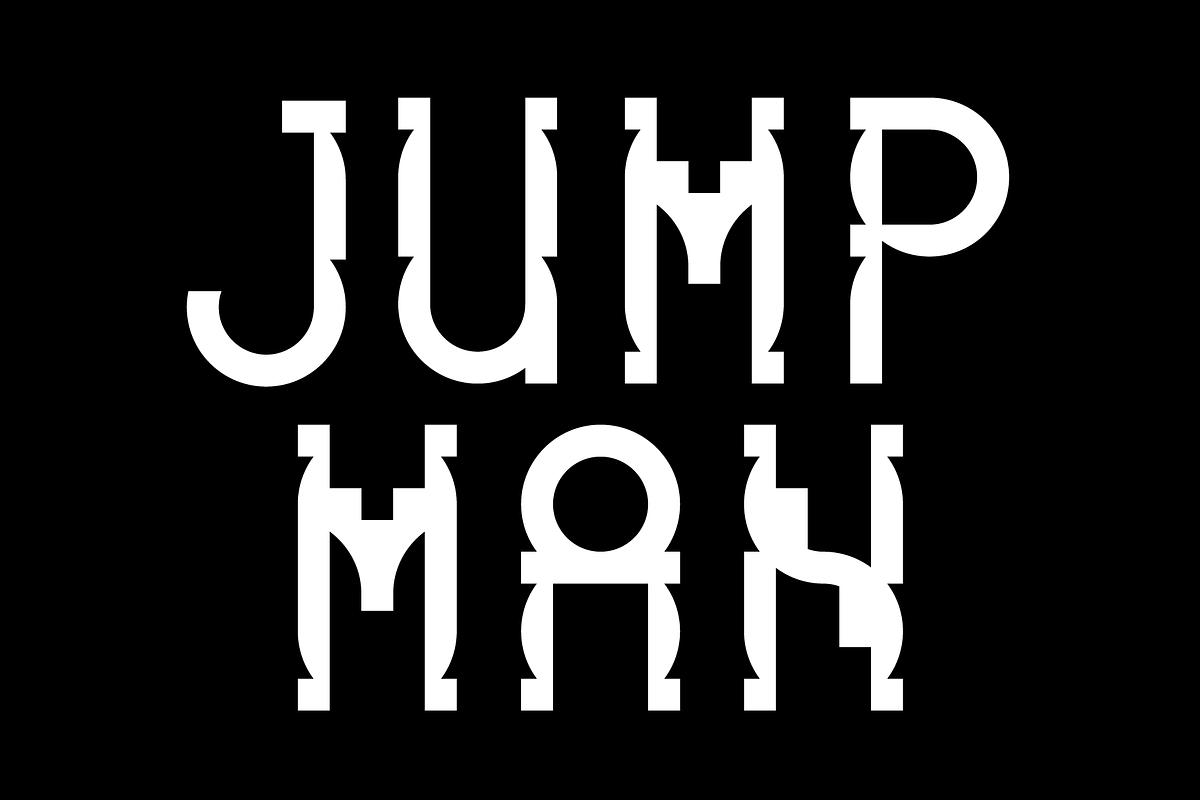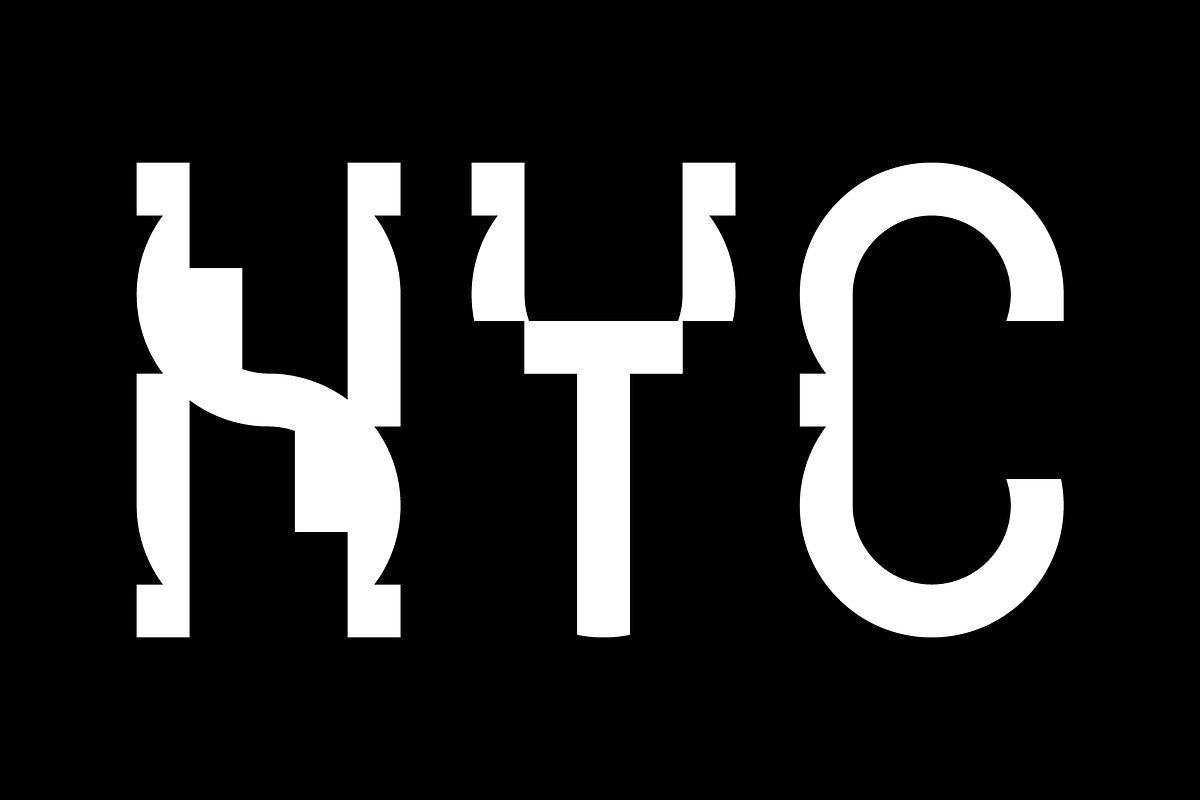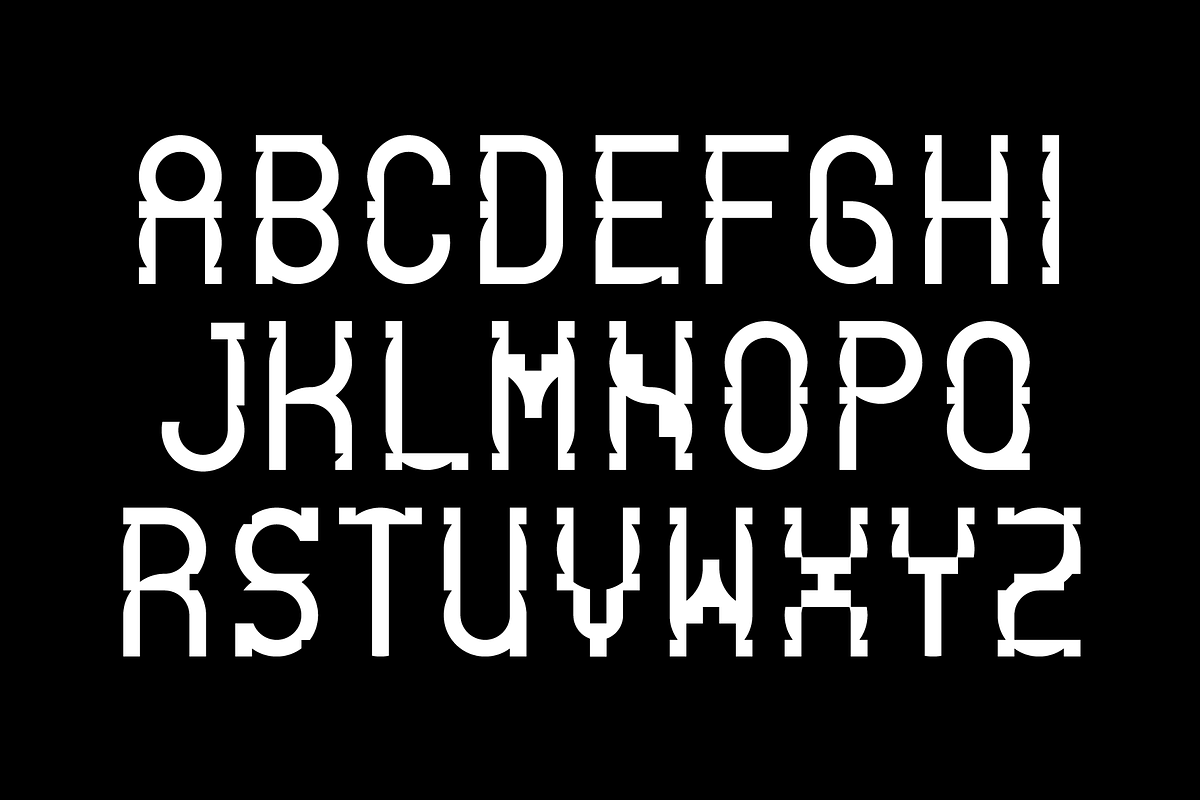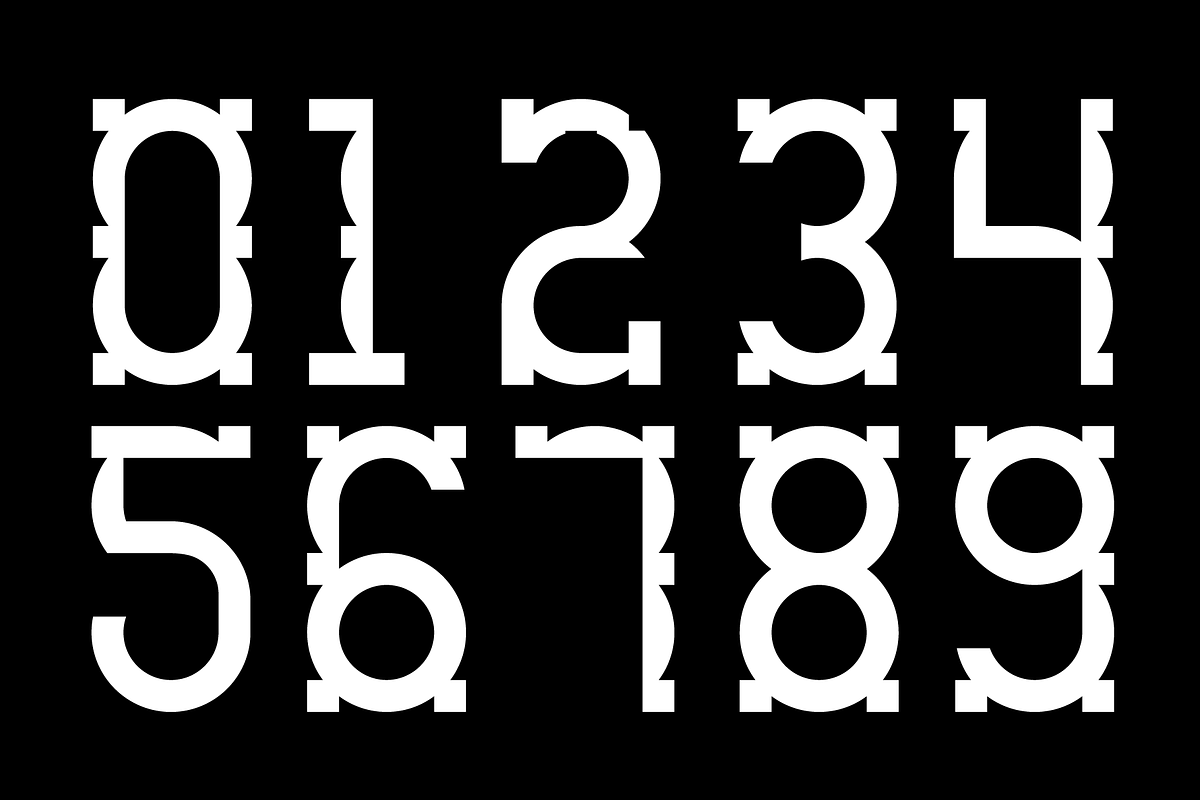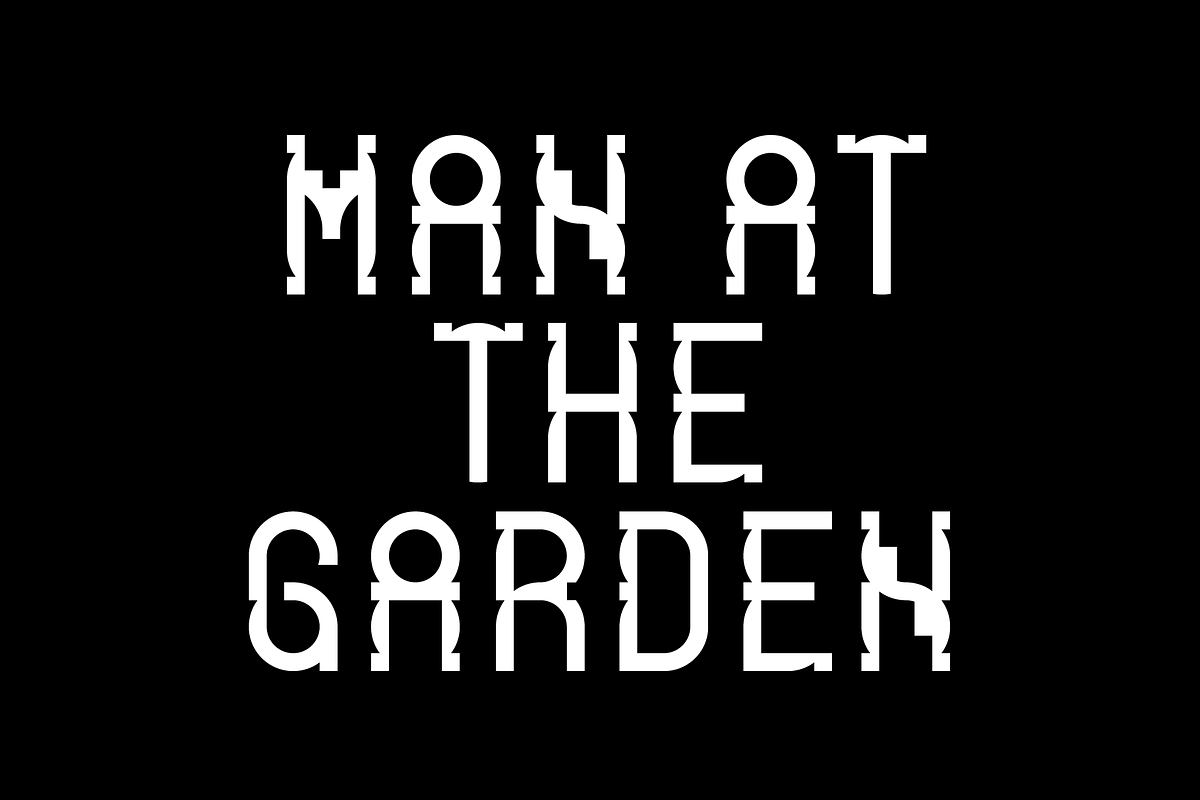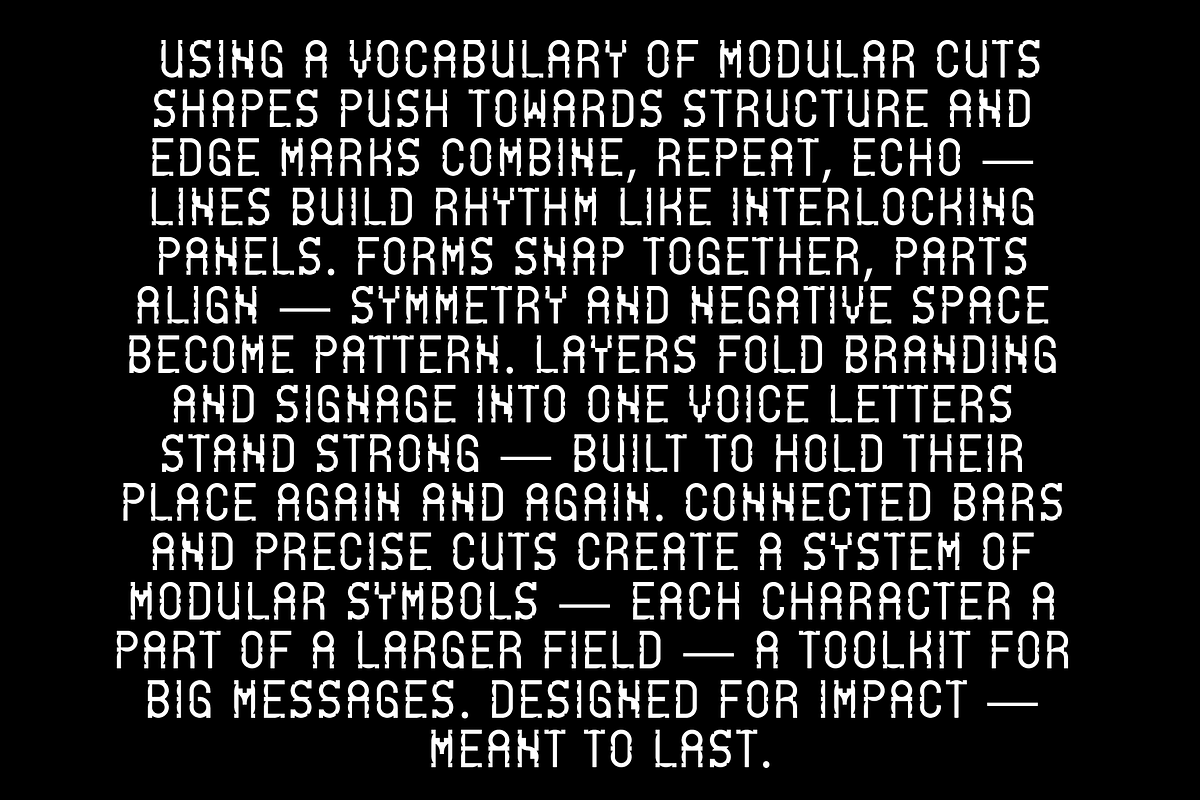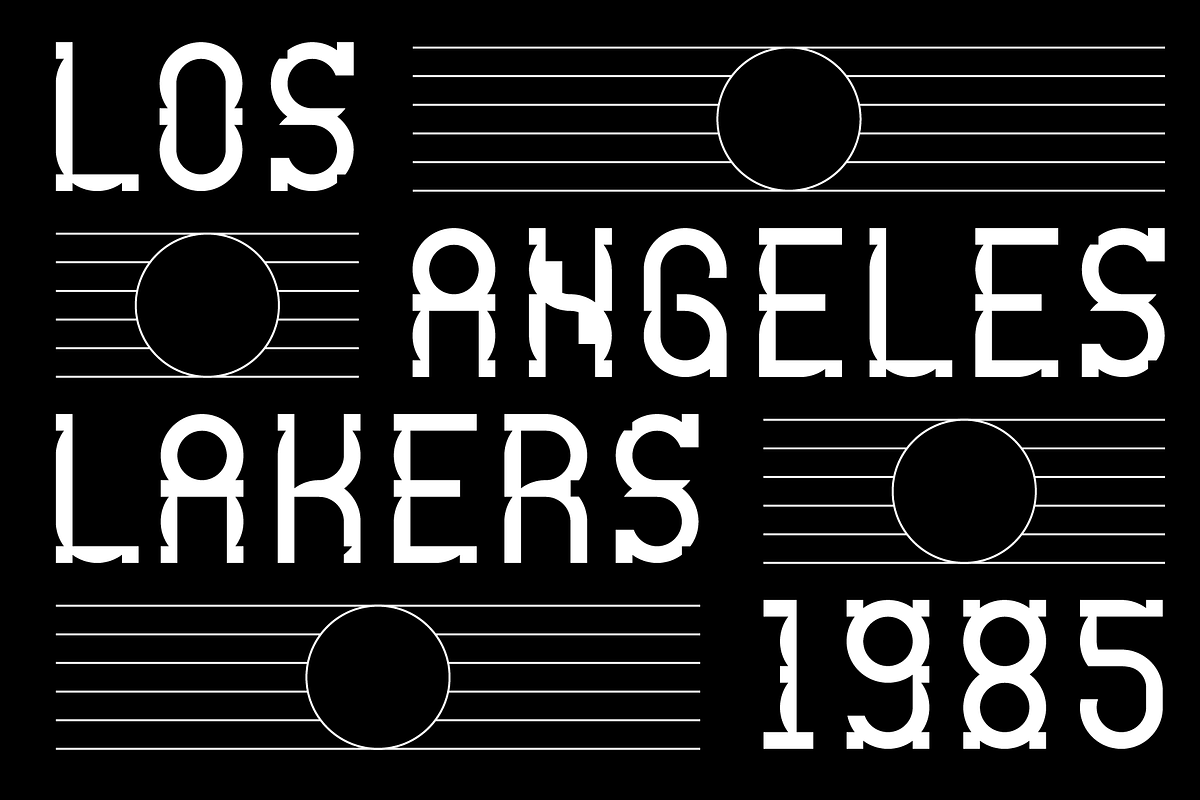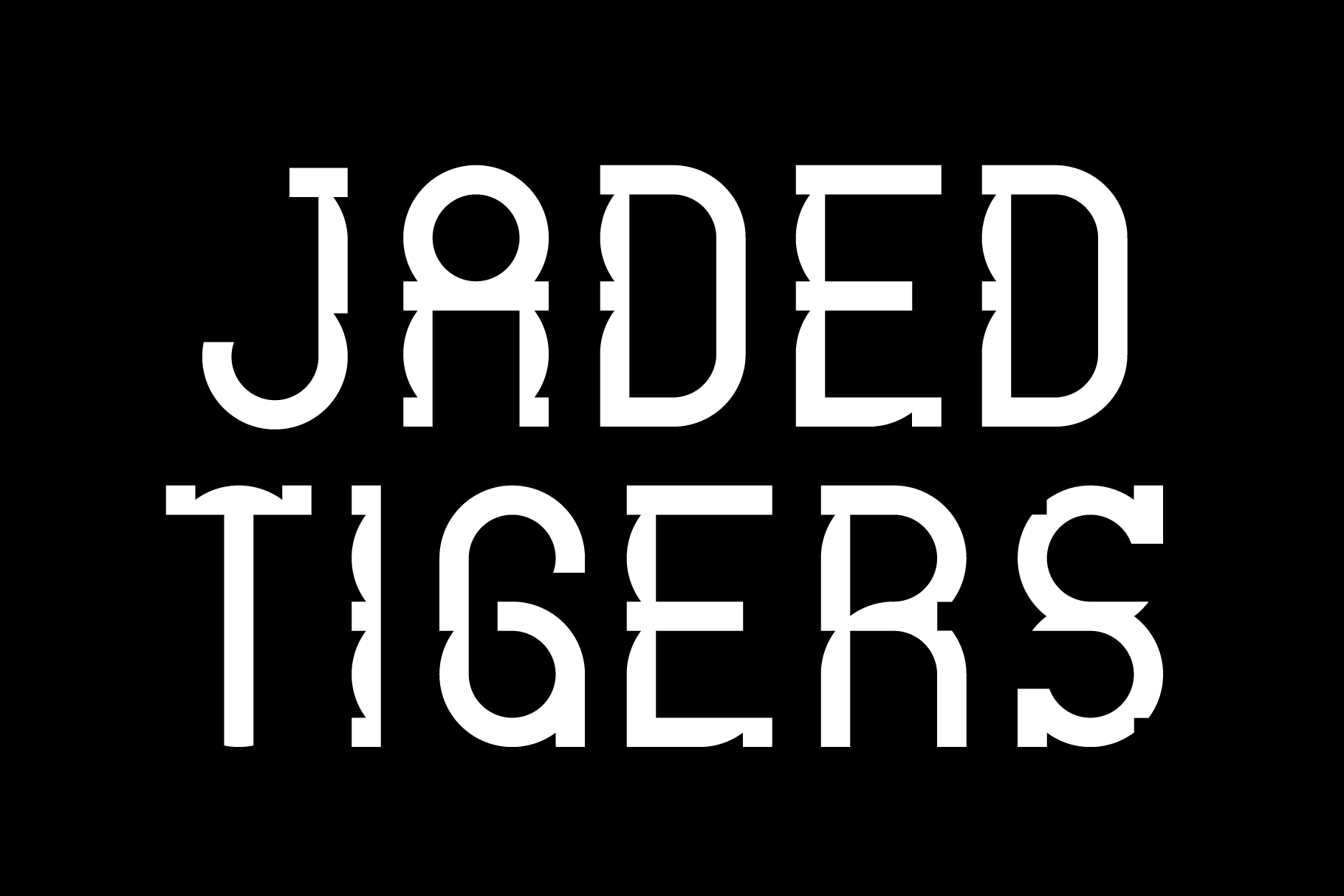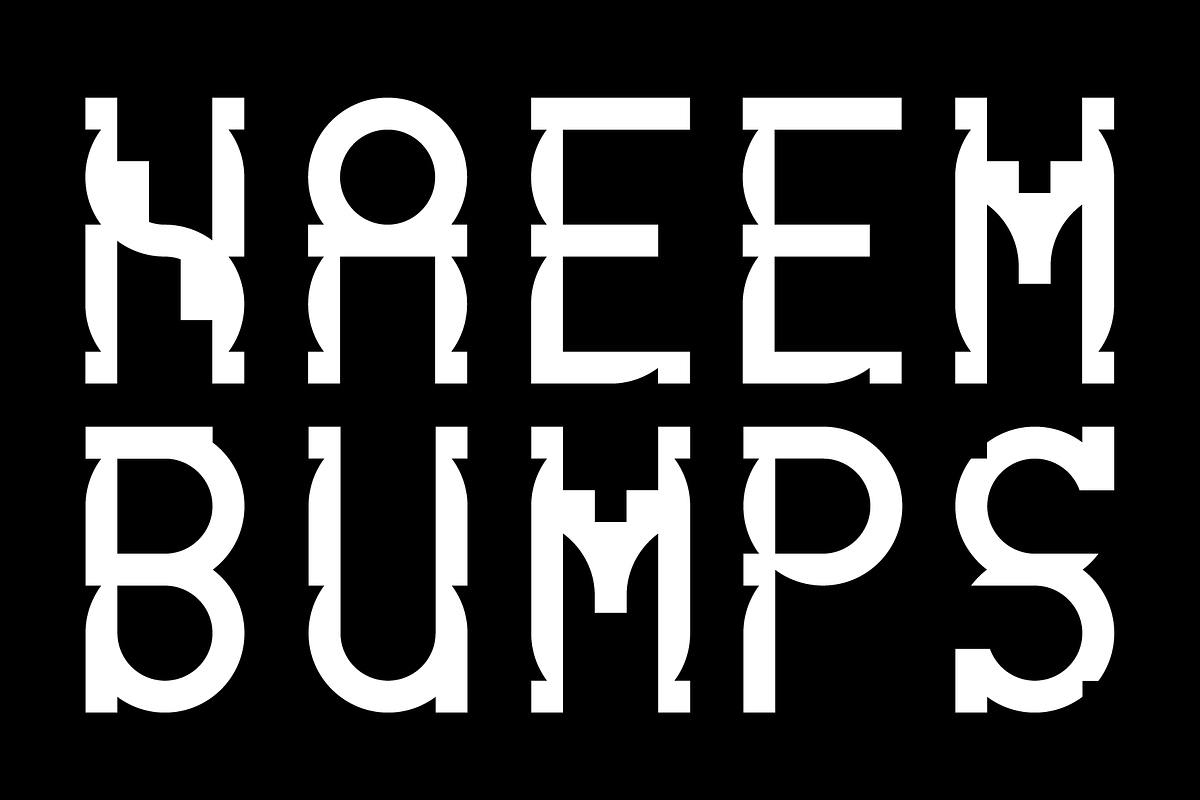
Jaded Tigers - Display Typeface
Jaded Tiger is a bold modular display typeface
Meet your new go-to for eye-catching headlines, signage, and brand statements. This bold modular display typeface fuses classic stencil lettering with a striking architectural twist — perfect for posters, logos, packaging, and modern editorial design.
Sharp cuts, geometric forms, and repeating shapes make every letter feel custom-built — creating a rhythm that commands attention on any surface. Designed for maximum impact, this typeface is ideal for anyone looking to add an industrial, retro-futuristic vibe to their work.
Bring bold personality, structural balance, and statement-making style to your next project with this modular display typeface.